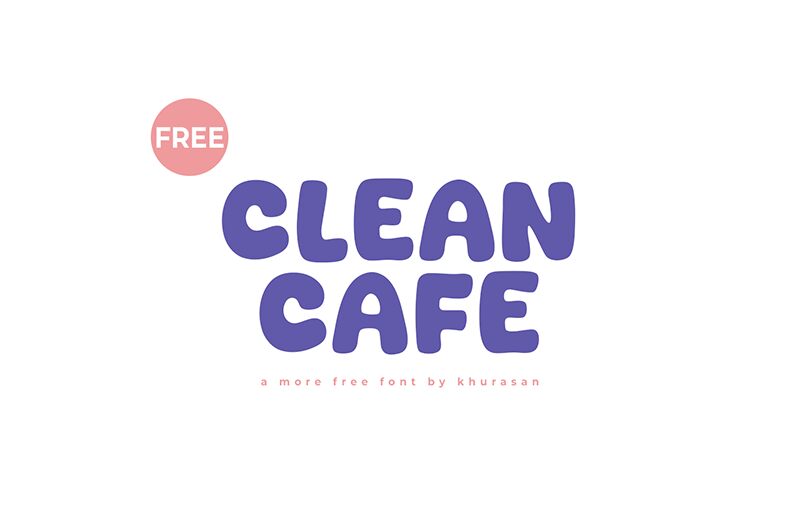
Clean Cafe font by Khurasan offers a whimsical, cartoon-inspired design that bursts with personality. Its bold display style commands attention with playful curves and lively characters, making it perfect for eye-catching headlines and creative projects. The font’s unique flair brings a sense of cheerfulness suitable for designing posters, children’s books, or branding materials aiming for an approachable vibe.
This free font is ideal for those seeking to infuse warmth and energy into their work. Whether you're crafting a captivating social media post or an inviting cafe menu, Clean Cafe provides an engaging typography experience. Download the Clean Cafe font today to add a touch of delightful charm to your next design project.